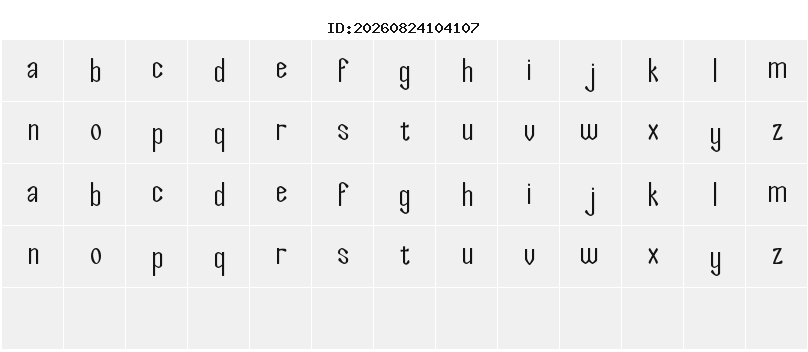
Salt of the Earth Preview
About Salt of the Earth.ttf
Salt of the Earth.ttf is a modern, elegant sans-serif font designed for ultimate readability and visual harmony. Perfect for branding, headlines, web design, and print materials.